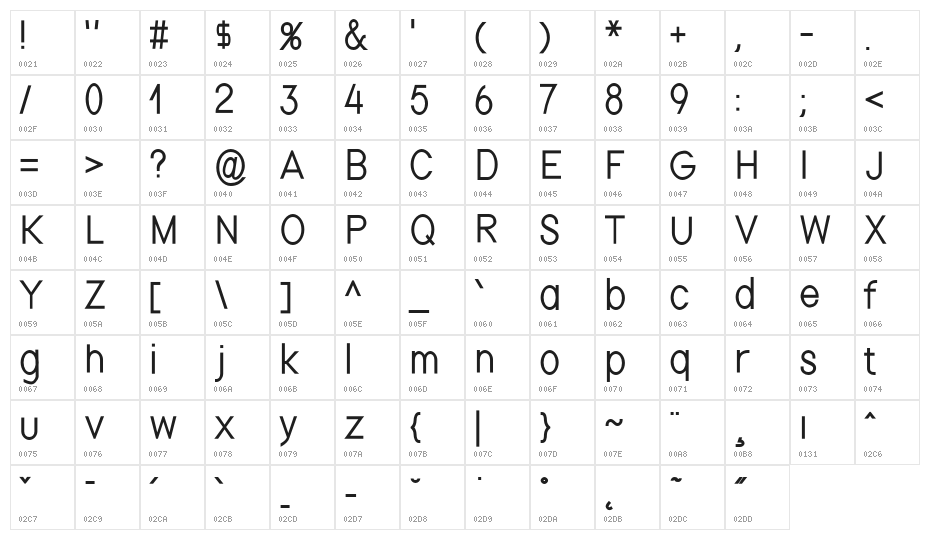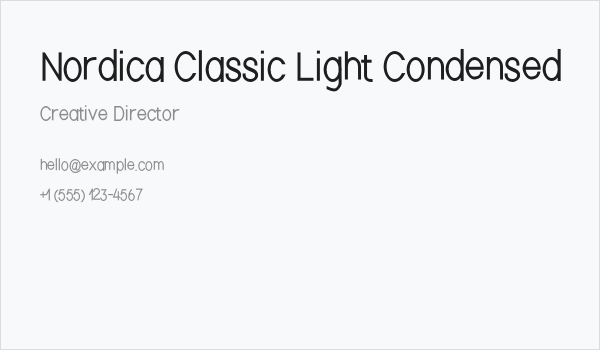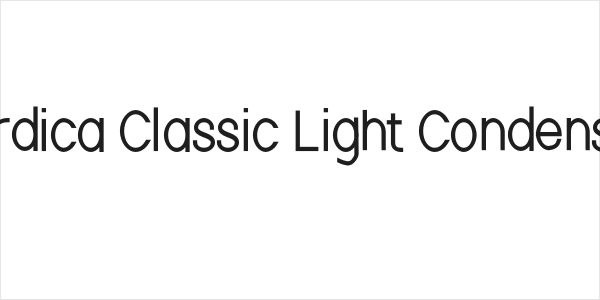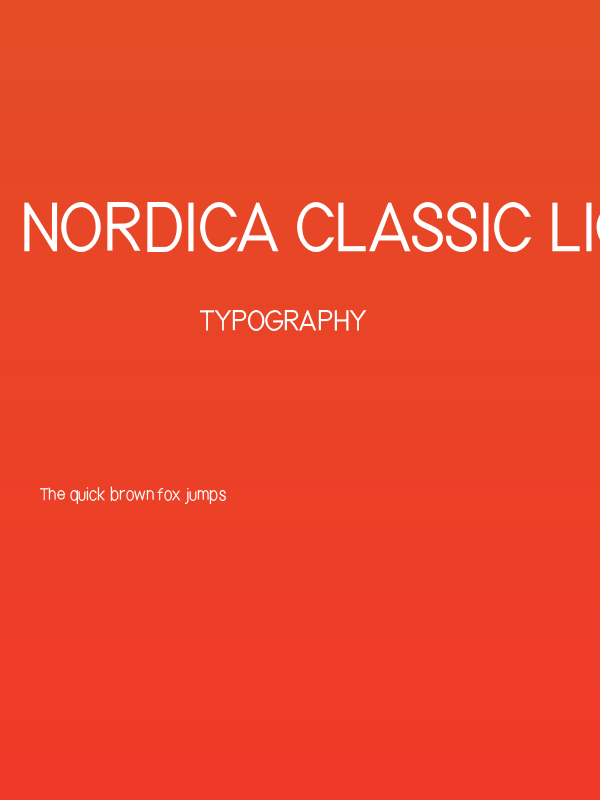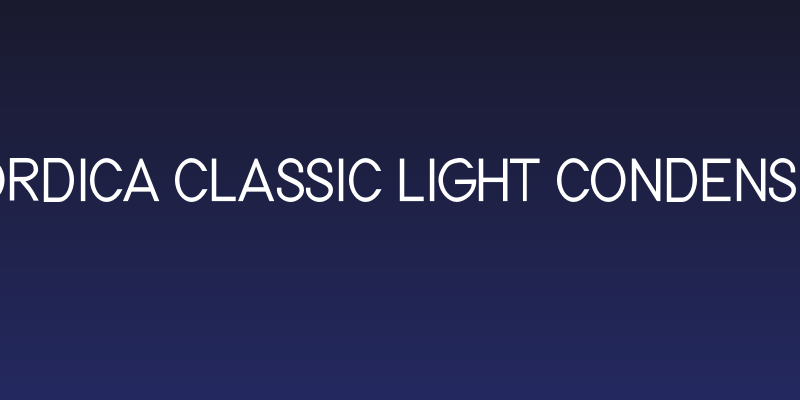
Nordica Classic Light Condensed Font
Nordica Classic Light Condensed Description
This font features a clean and modern sans-serif design with a light weight and condensed width. The characters are evenly spaced, providing a balanced and harmonious appearance. The uppercase and lowercase letters maintain a consistent style, with smooth curves and straight lines that enhance readability. The numerals are clear and distinct, making them suitable for various applications. Special characters are included, offering versatility for different design needs. The overall aesthetic is sleek and contemporary, making it ideal for projects that require a minimalist and professional look.
| Proposed Projects | Ideal for branding, editorial design, web design, and advertising where a modern and professional look is desired. |